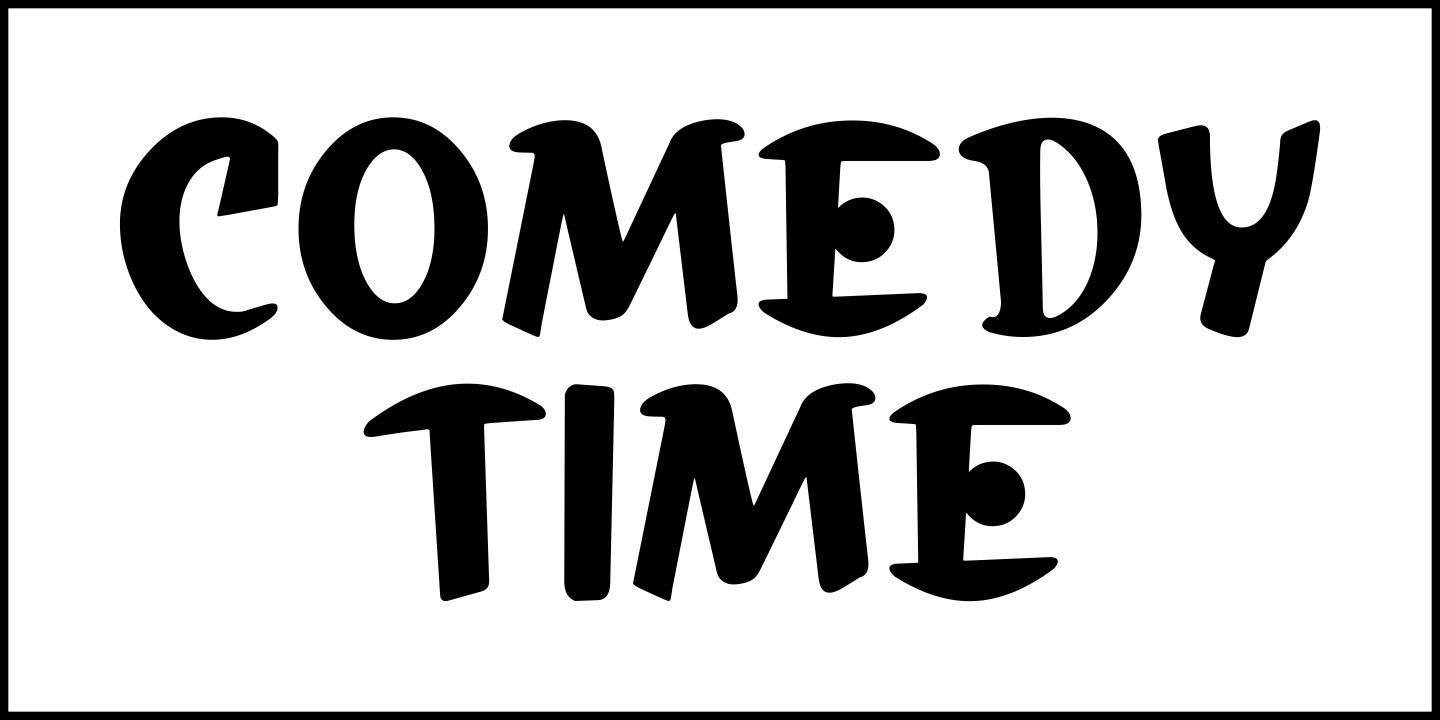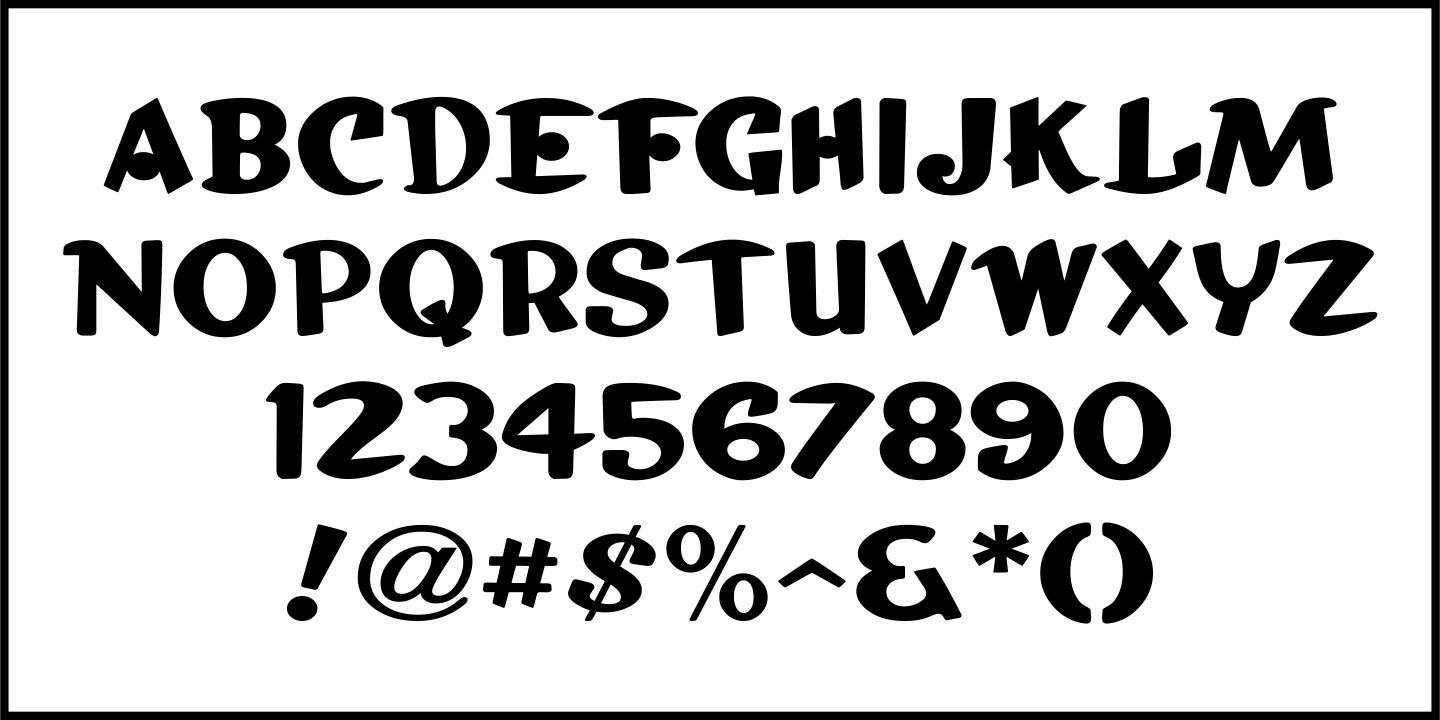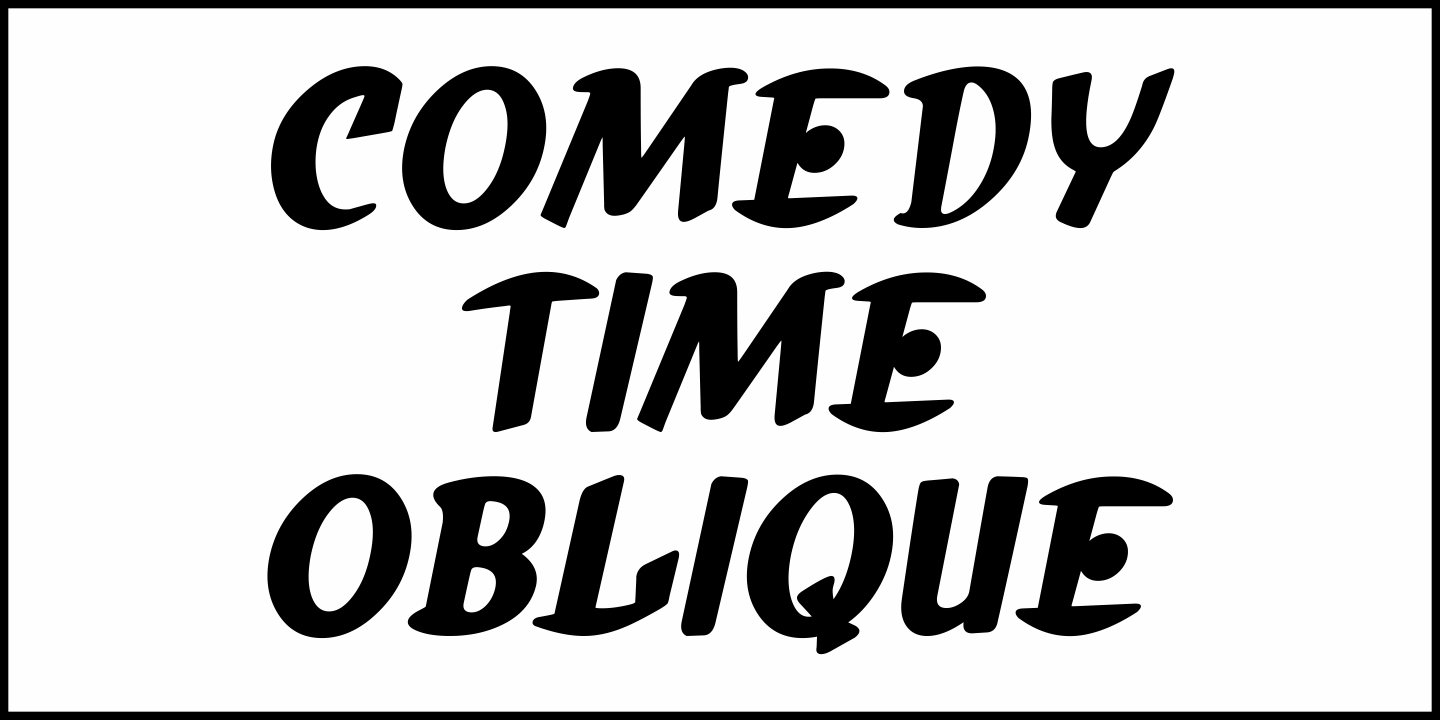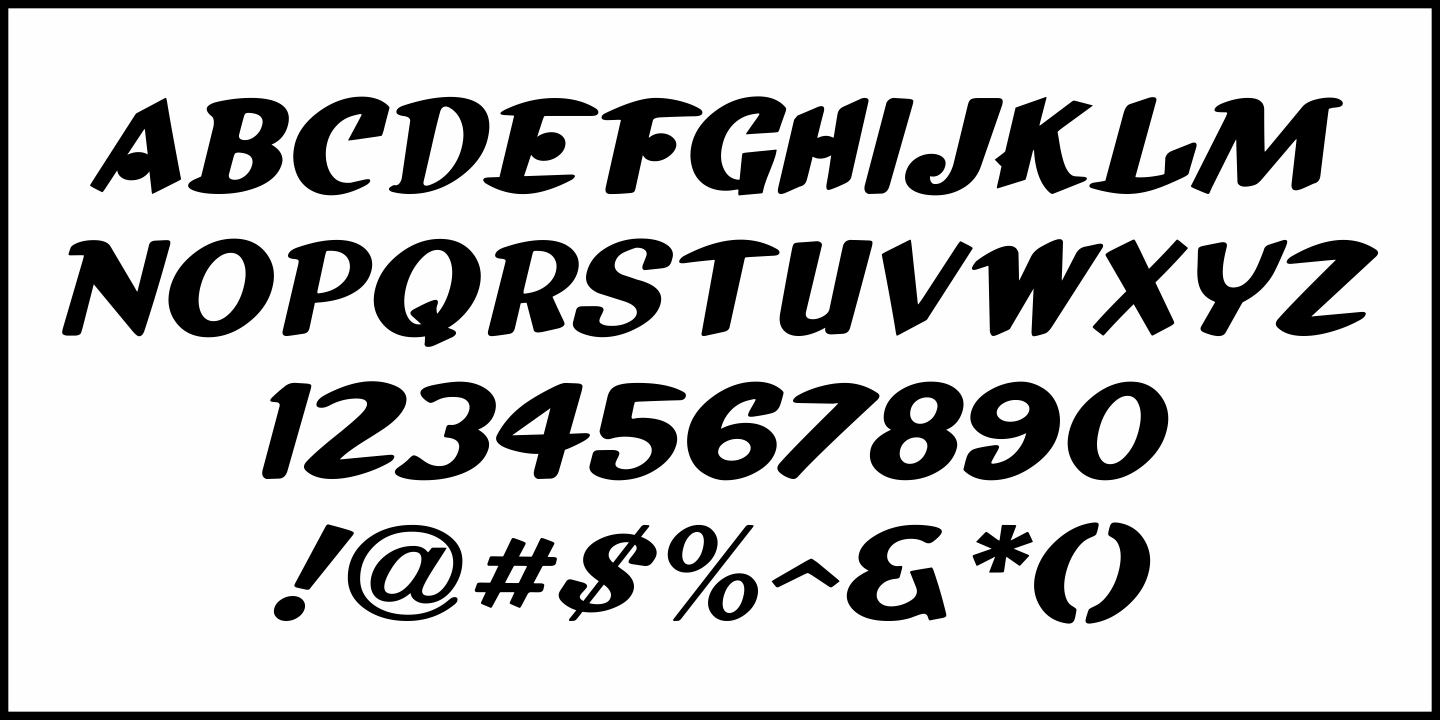
Comedy Time JNL
The hand lettered title card from the 1936 comedy short from Educational Films entitled "Wacky Family" (starring Tim Ryan- and Irene Nobelette) was done in a playful, casual bit of novelty lettering.
This now available digitally as Comedy Time JNL in both regular and oblique versions.
For trivia buffs, Irene Nobelette was actually married to Tim Ryan - and as Irene Ryan she's best remembered as Granny from "The Beverly Hillbillies".